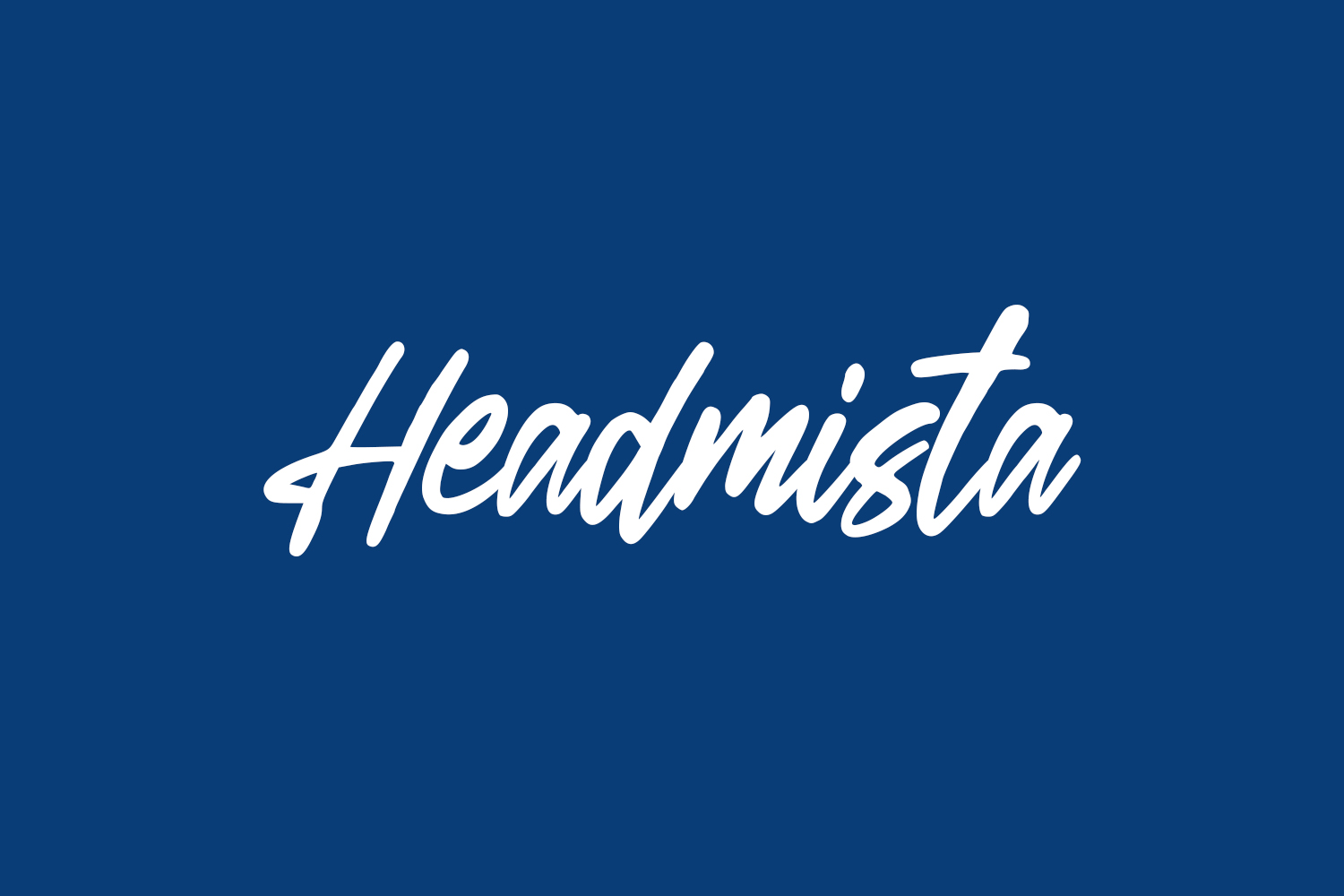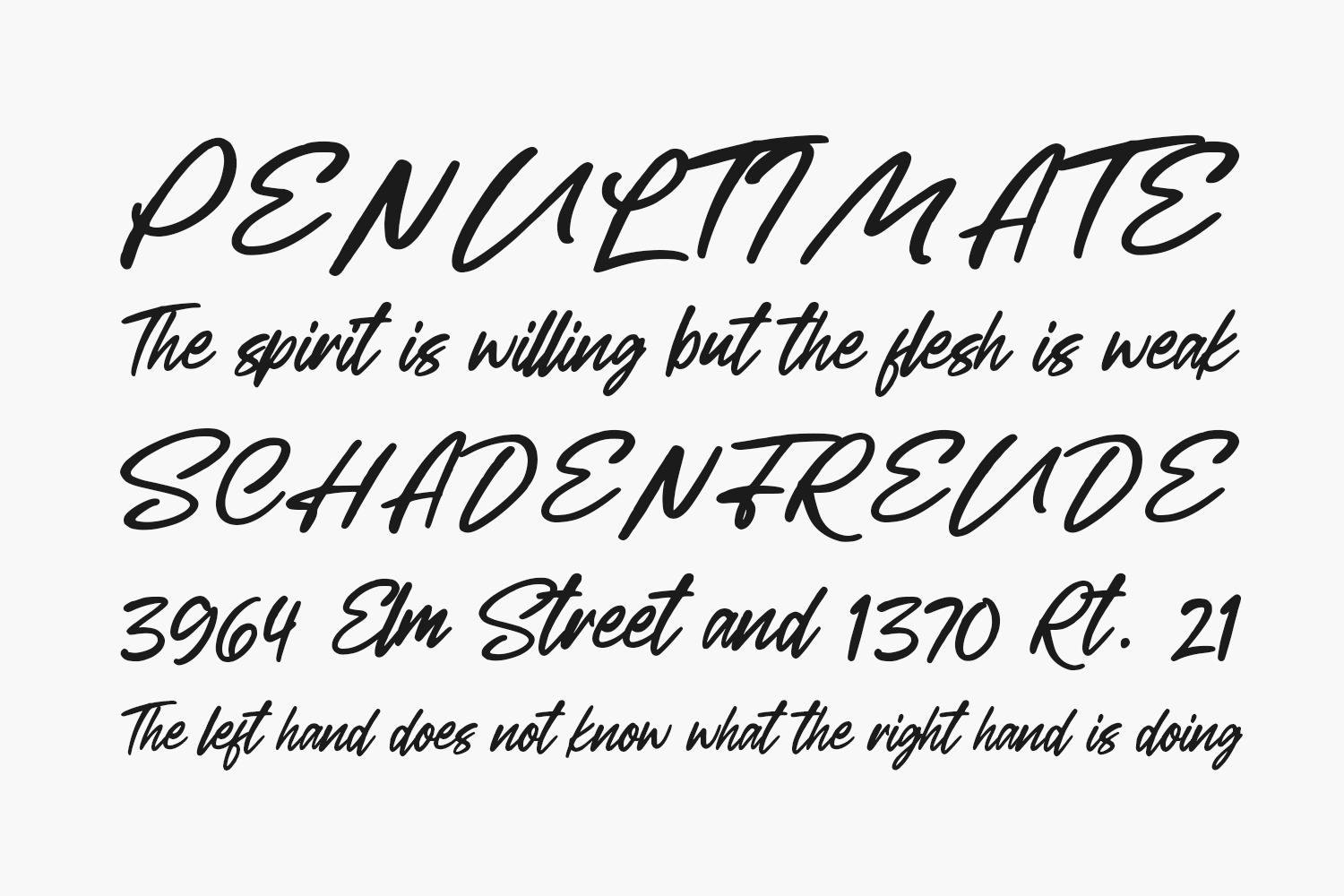
Meet Headmista Free Font, a script font that effortlessly blends professionalism with personality. This versatile font is perfect for various applications such as logos, badges, packaging, headlines, posters, and more. Add a touch of charm and character to your design projects with Headmista. Download the font for free if you need it for personal use or purchase the full version for commercial use.
Designed by Tebaltipis Studio